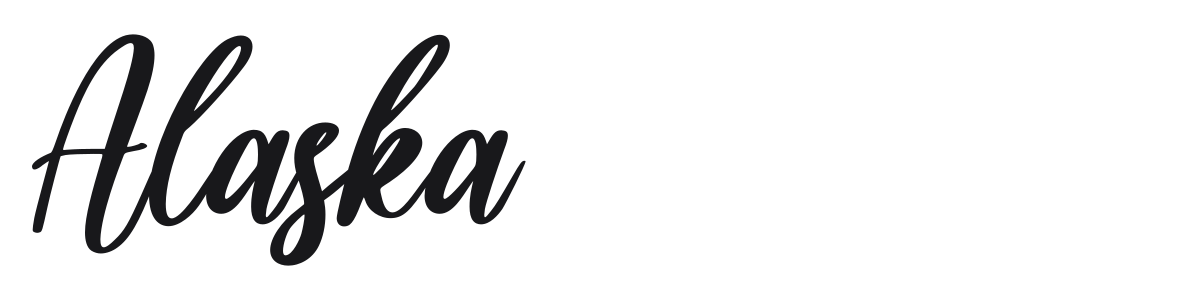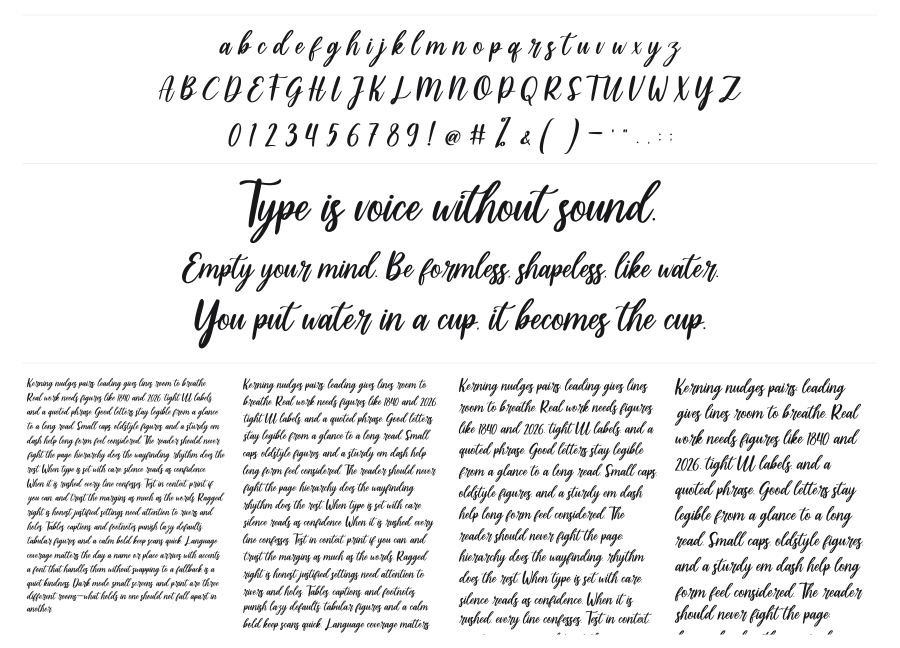
Alaska
Alaska is a bold brush script from Skiiller Studio with fluid connected strokes and strong calligraphic contrast. The wide, sweeping characters carry a natural hand-lettered energy that feels at home on everything from product packaging to wedding invitations. It strikes a balance between polished and approachable.